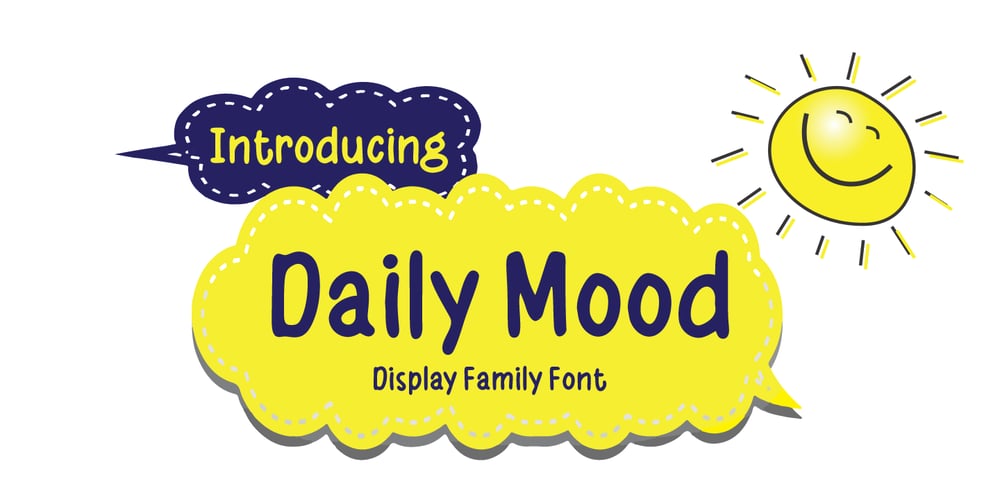
Daily Mood
Daily Mood font
Daily Mood Font Family was designed by Lia Almuknisa and published by Fromletterel. Daily Mood contains 2 styles and family package options. Daily Mood is a simple and neat lettered family font included regular and italic style. This Font is suitable for kids branding, poster, stickers and any cool projects, it’s bold and round character make Daily Mood stands out from the crowd.